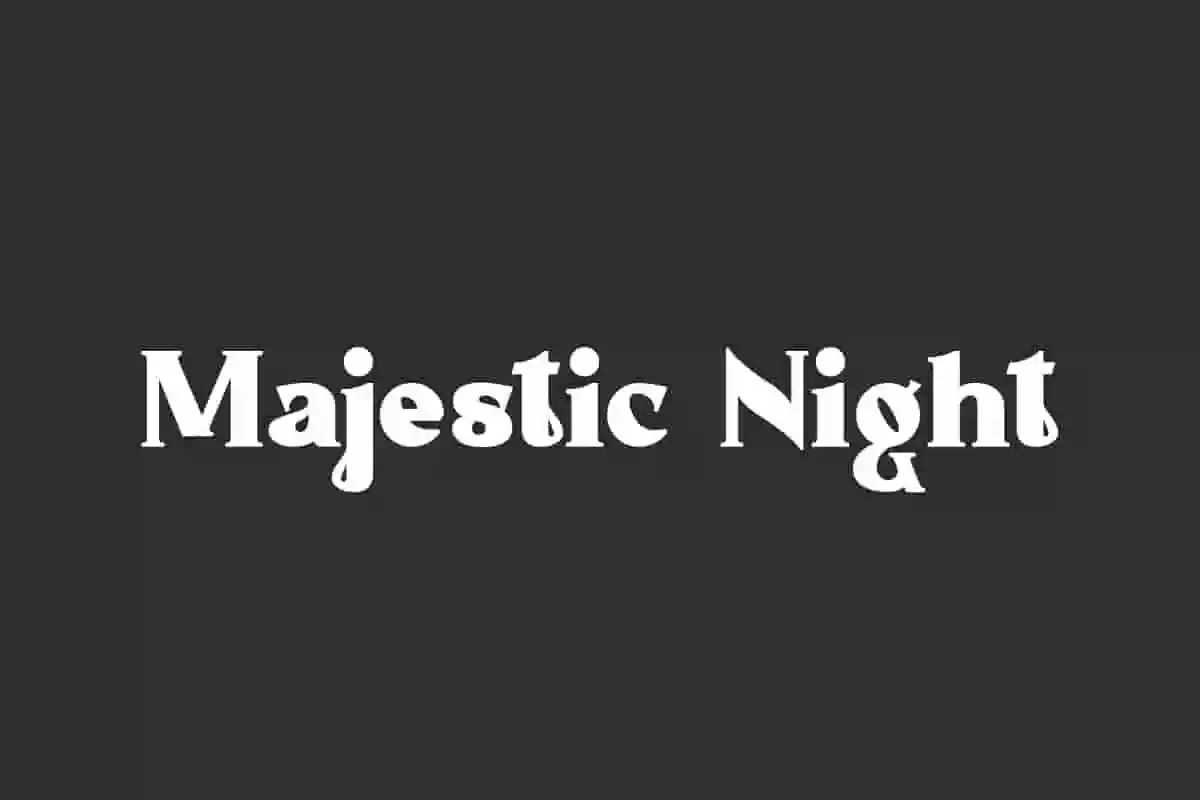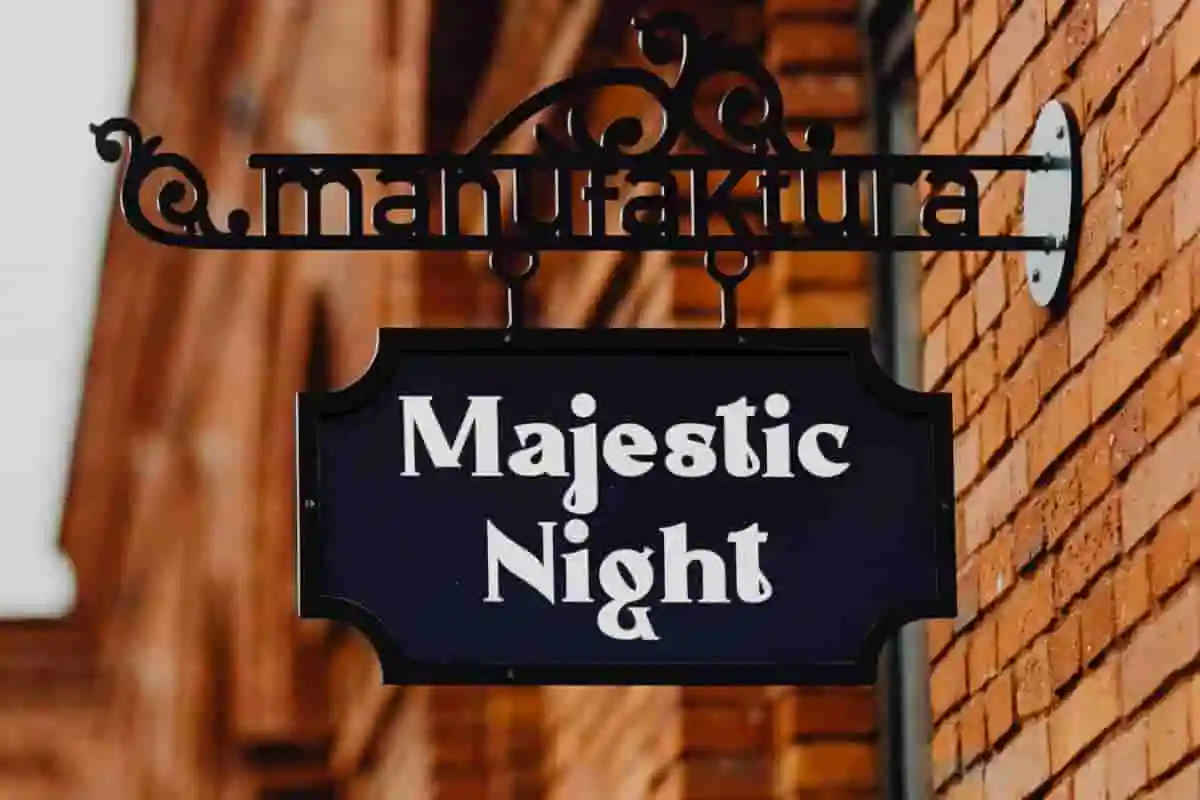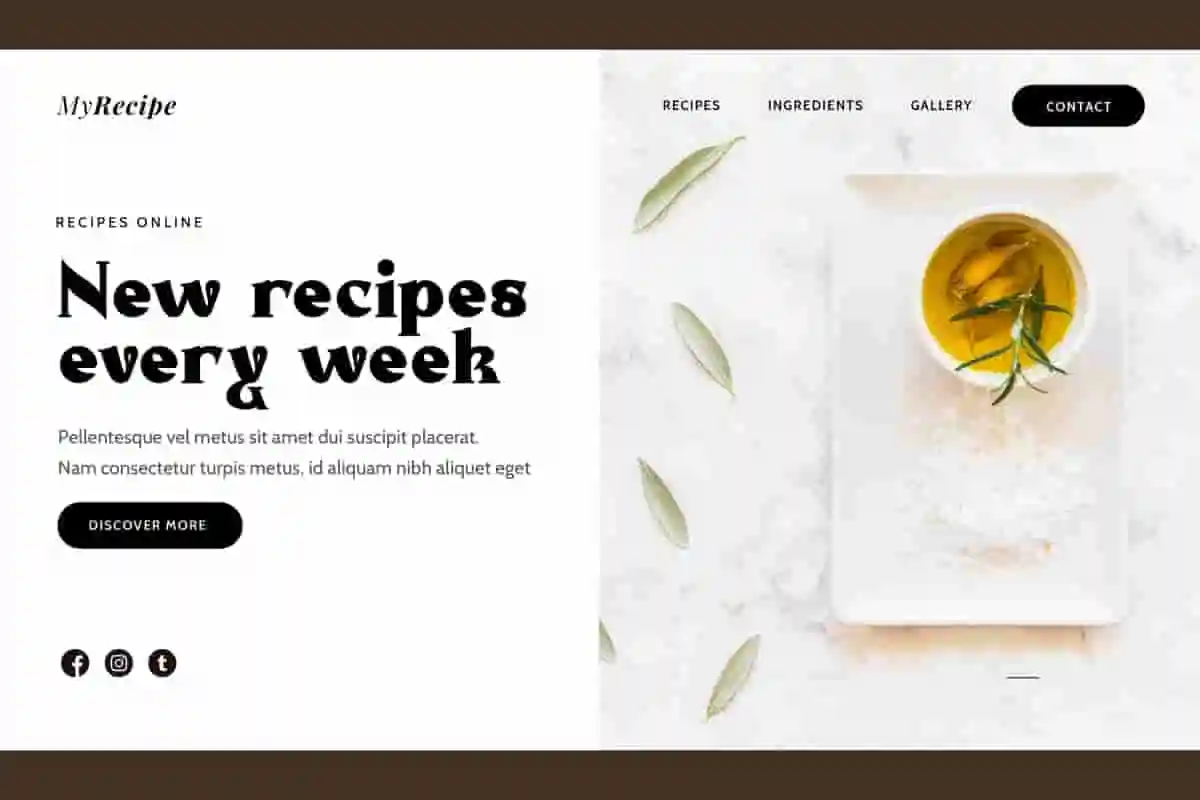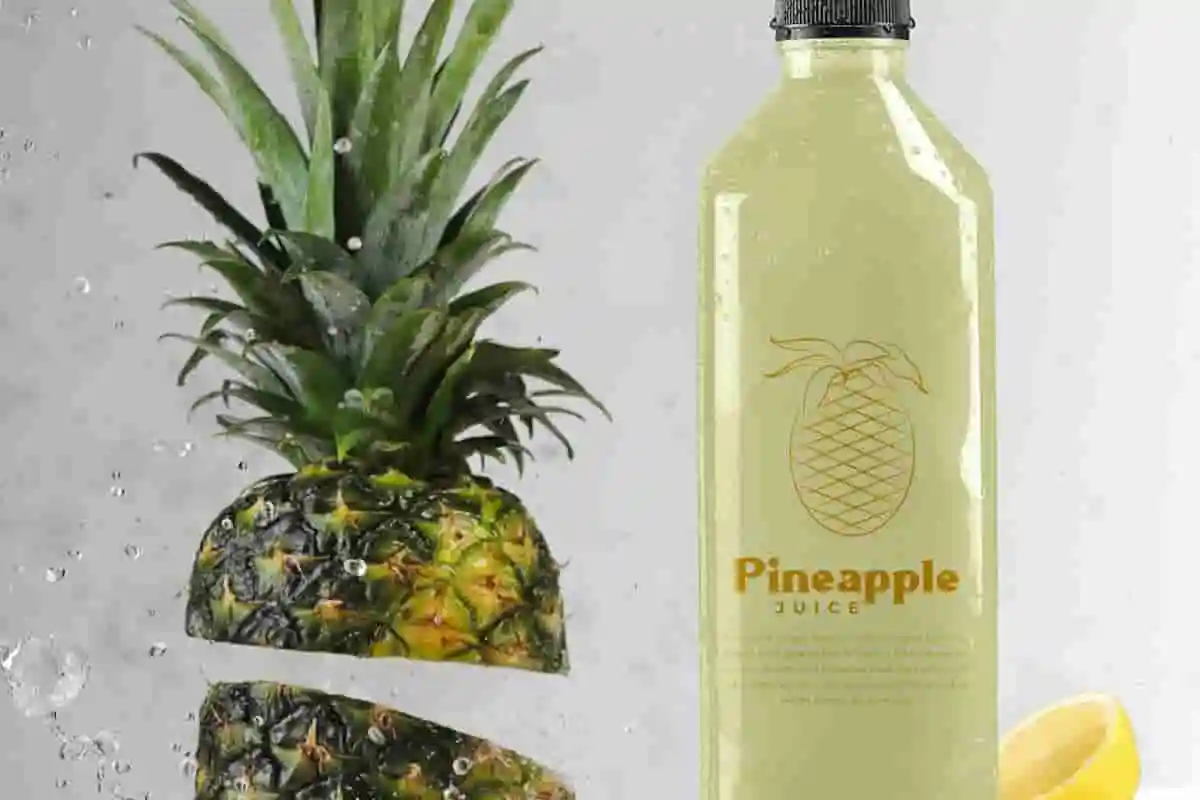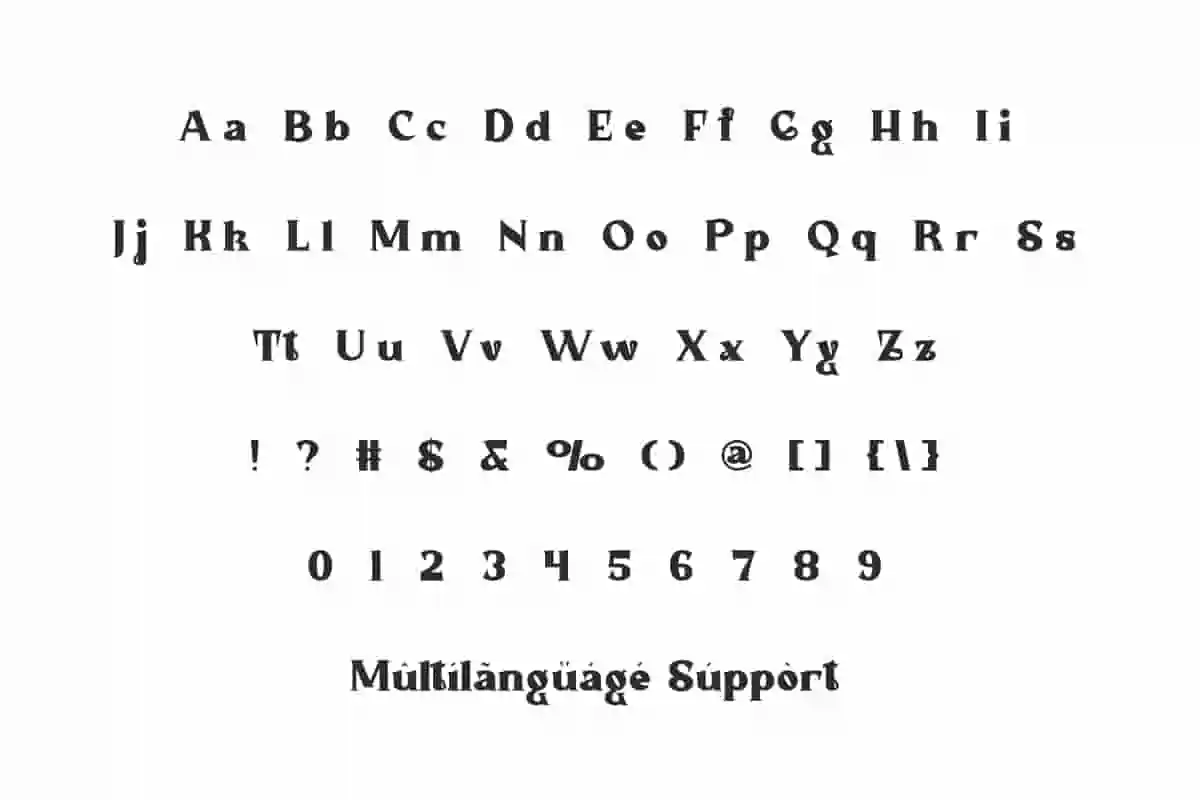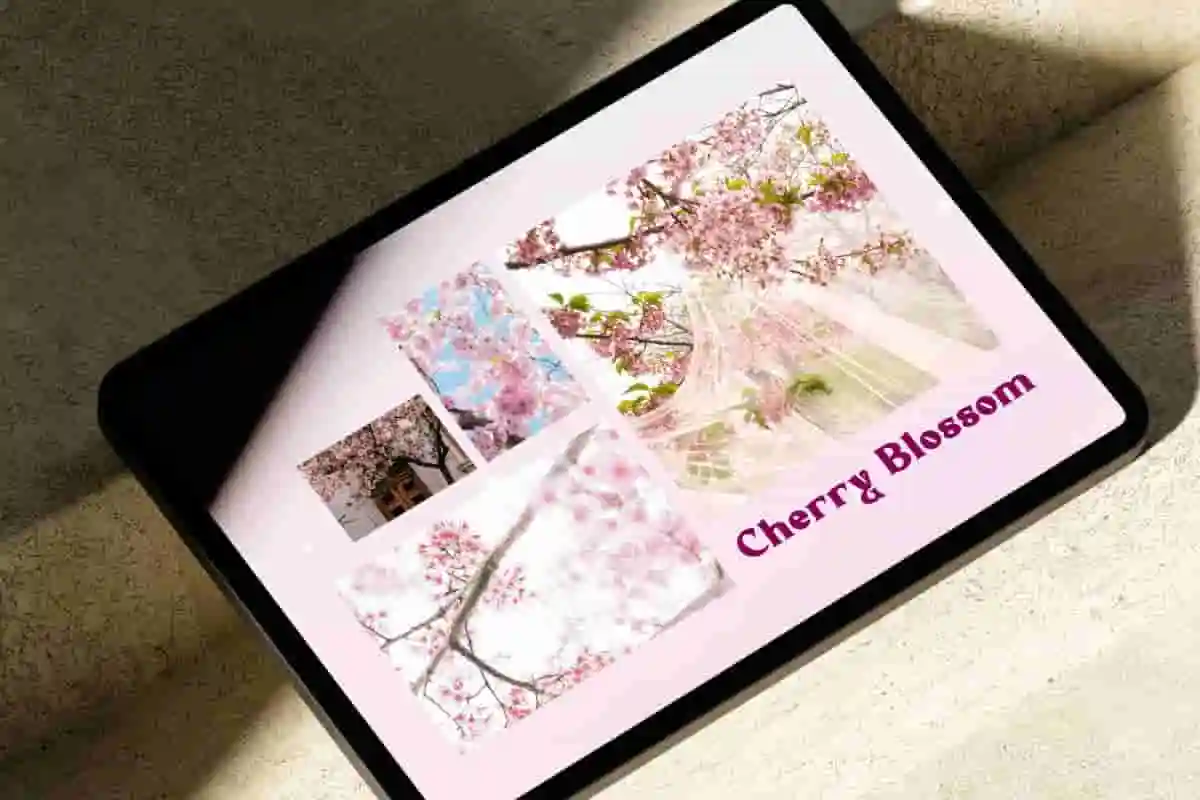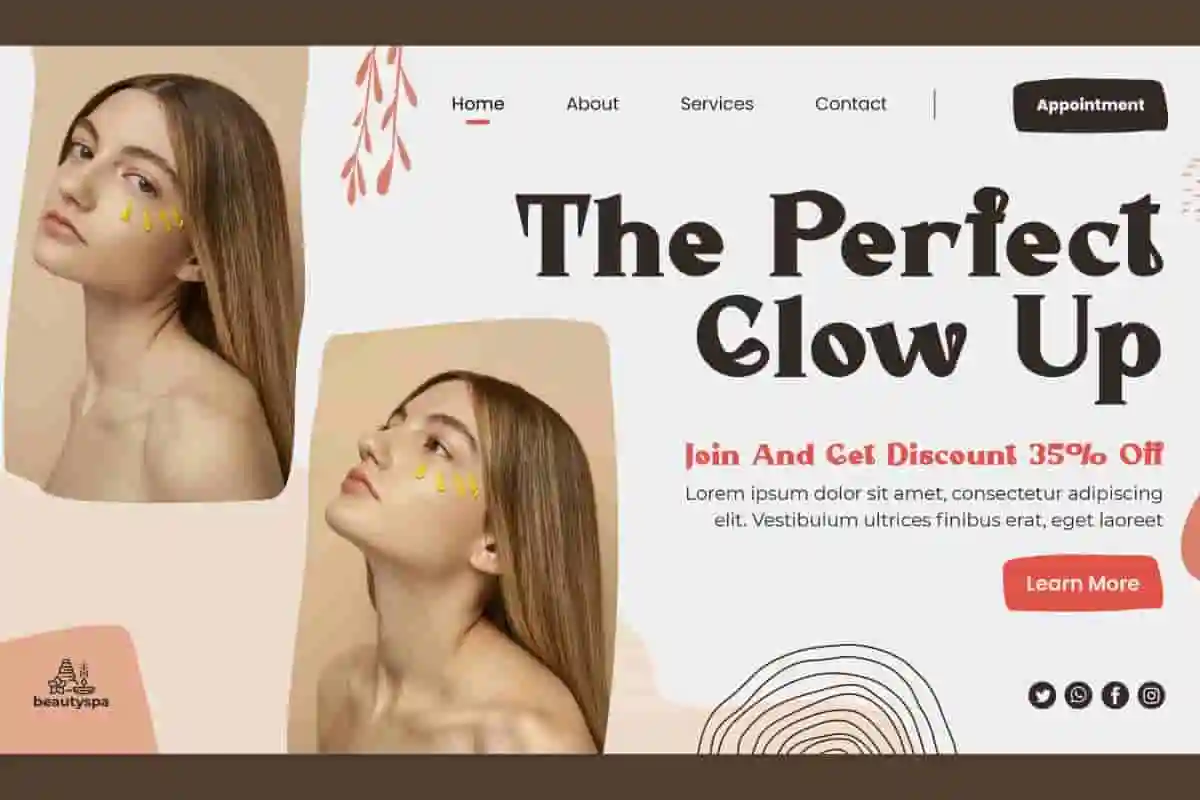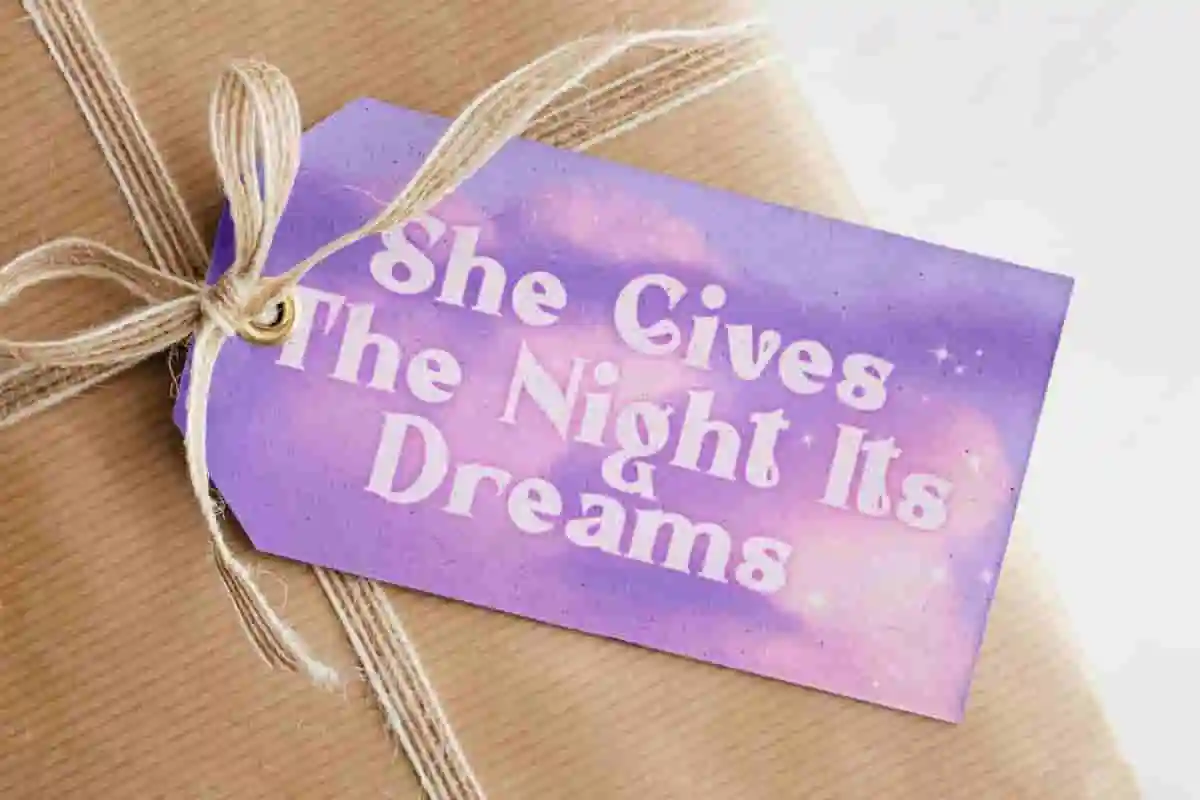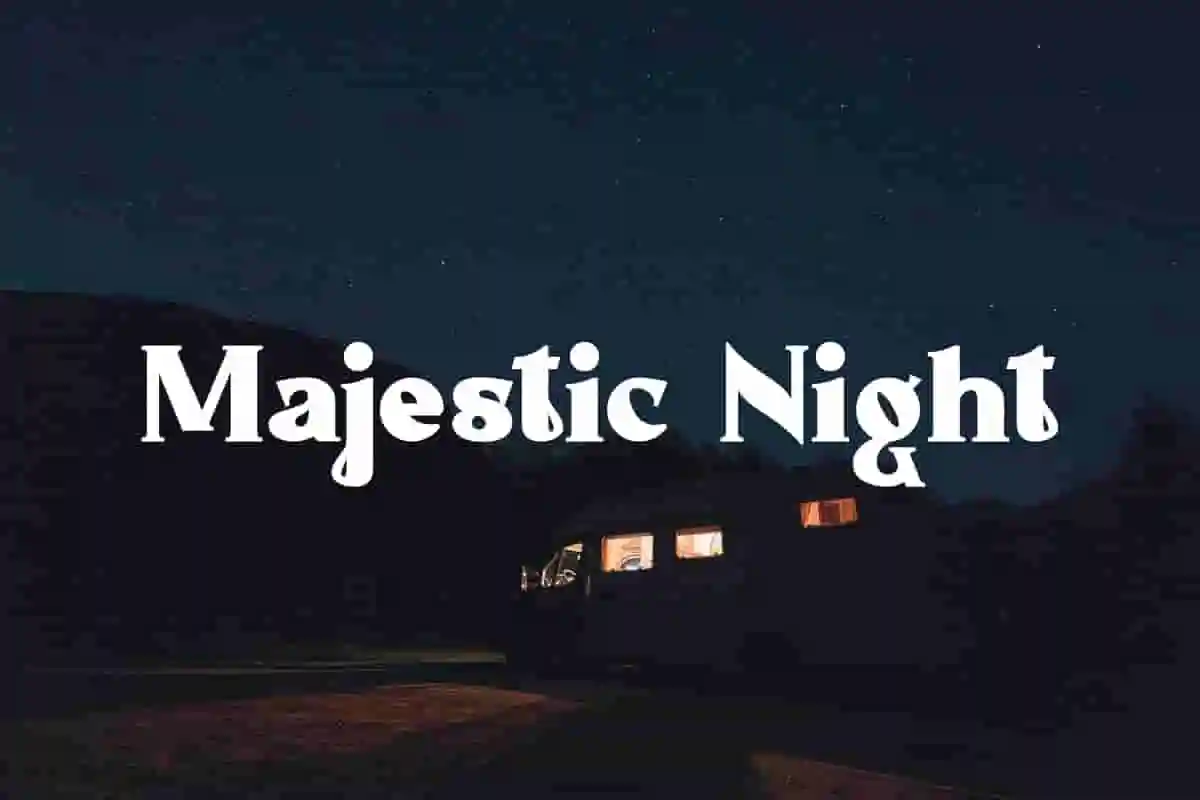
Majestic Night Display – Sophisticated Sans & Serif Font Duo
A Bold & Elegant Typeface for Premium Designs
Introducing Majestic Night Display, a striking sans and serif font duo designed to bring elegance and authority to your creative projects. With both classic serif and clean sans serif styles, this font gives you the flexibility to create stunning headlines, brand logos, packaging designs, and more.
Whether you’re working on a luxury brand, fashion campaign, or editorial layout, Majestic Night adapts beautifully. On one hand, the serif style delivers timeless sophistication. On the other, the sans version offers a sleek, modern look — making it perfect for mixing and matching.
Majestic Night Font is a charming serif display font, creating a blend of elegance and a distinctive classic feel. This font has a unique character with interesting details, making it a perfect choice for a variety of design concepts, such as branding, brochure, label, logo design, magazine cover, mockup template, packaging, poster, quote, signage, stationery, website, and more!
Majestic Night Font includes a complete set of Uppercase and Lowercase Basic Characters, Numbers, Punctuation, and Symbols. This font is beautifully designed and fits perfectly, making it an ideal choice for a variety of industries, such as advertising, beauty product, boutique, cafe, craft, event or wedding organizer, photography, real estate, restaurant, spa, travel, and so on.